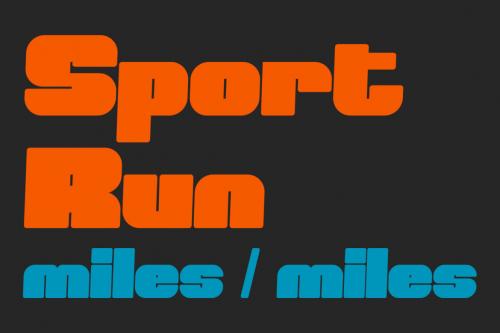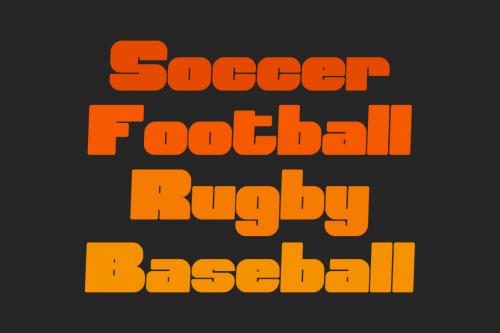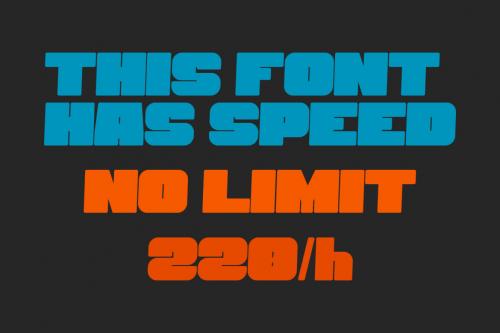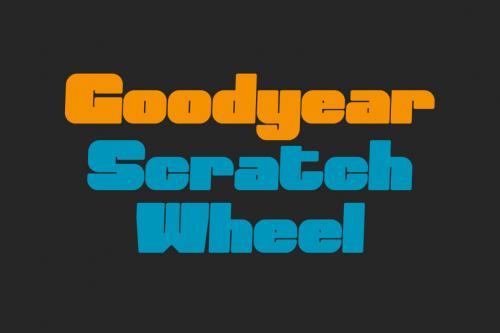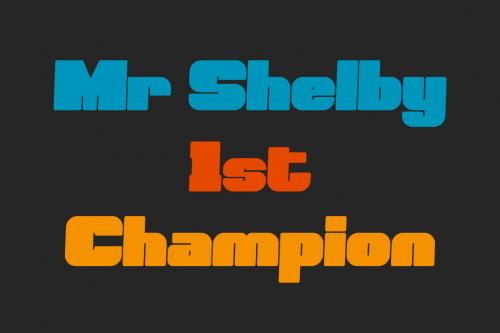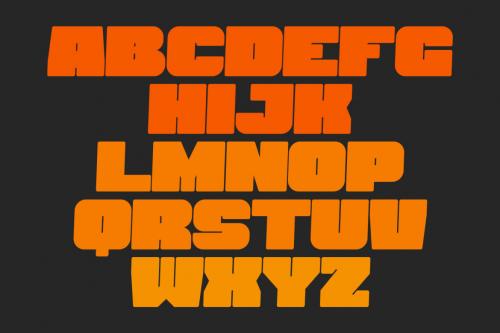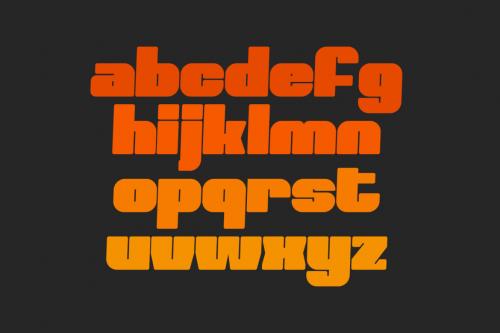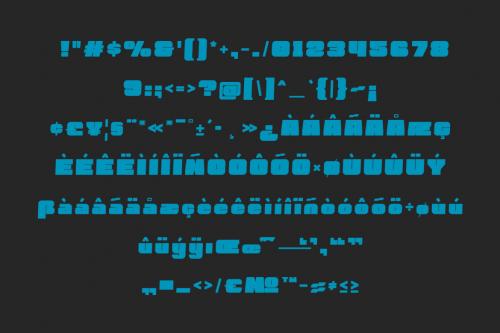
Cartif is a strong bold semi slanted Display font. With Heavy stroke, fun character with a bit of ligatures and alternates. To give you an extra creative work. Cartif font support multilingual more than 100+ language. This font is good for logo design, Social media, Movie Titles, Books Titles, a short text even a long text letter and good for your secondary text font with sans or serif. Make a stunning work with Cartif font.